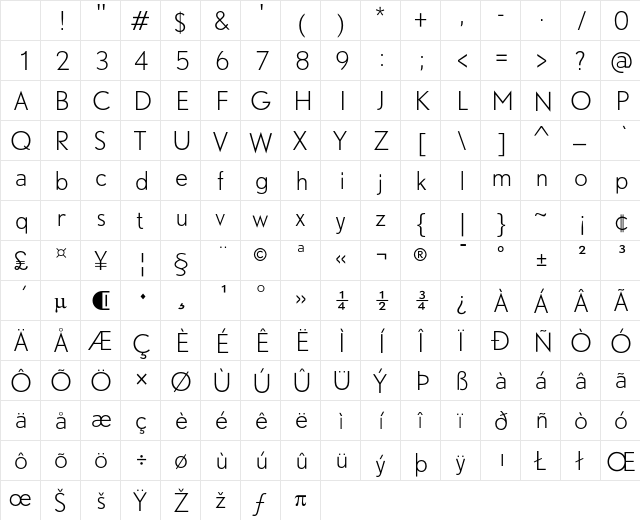
Complete DTL Nobel T Light glyph index. Displaying only characters natively supported by DTL Nobel T Light font.
DTL Nobel is a composed and adaptable typeface that performs quietly and consistently across a wide range of design contexts. Its slender proportions lend an understated elegance to any composition.